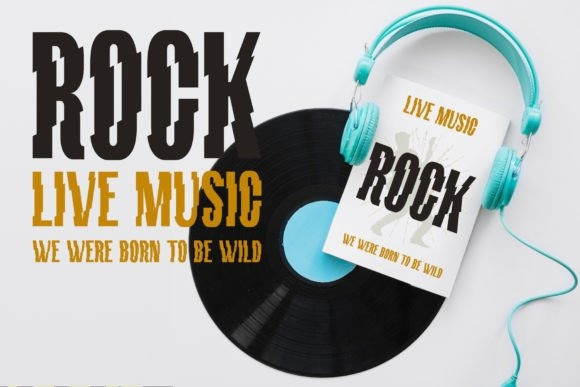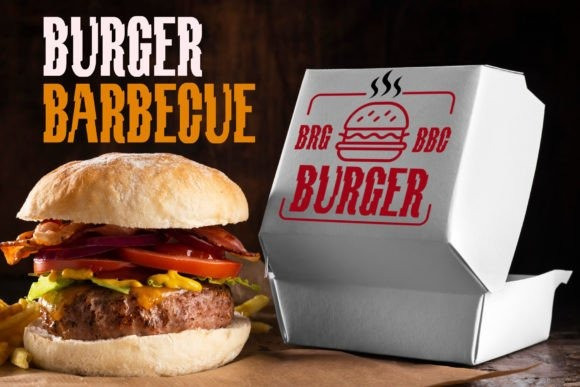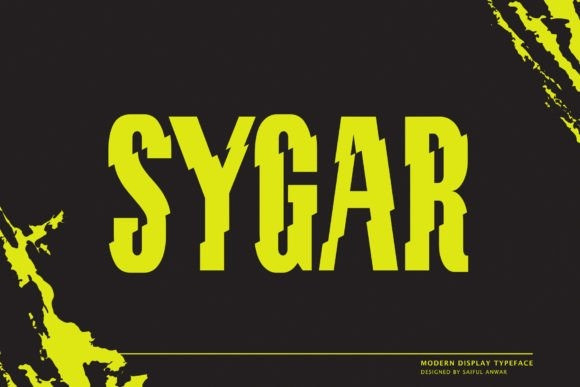
Sygar Display Font
Sygar Display Font, a modern display font that embodies elegance and uniqueness. With its sleek lines and stylish curves, Sygar adds a touch of sophistication to any design. Each character is meticulously crafted to create a harmonious blend of modernity and style, making it perfect for branding, headlines, and editorial design. Sygar is not just a font; it’s a statement of elegance and class.